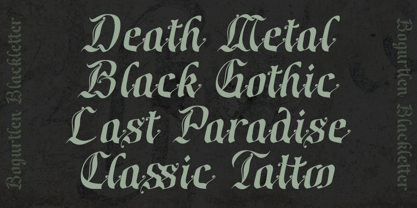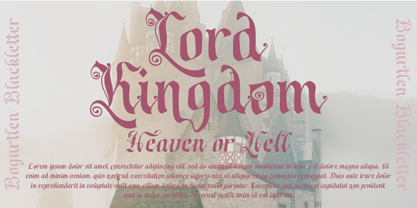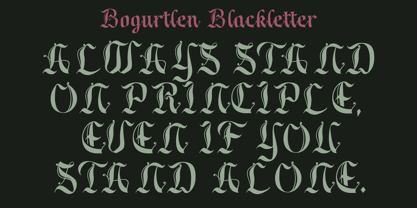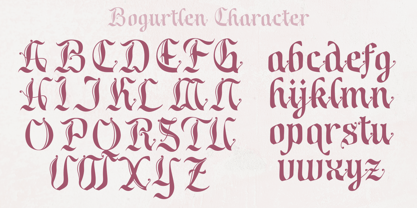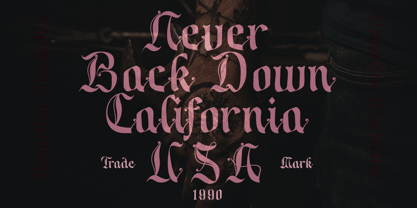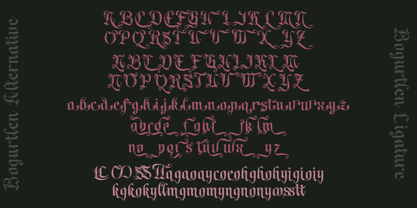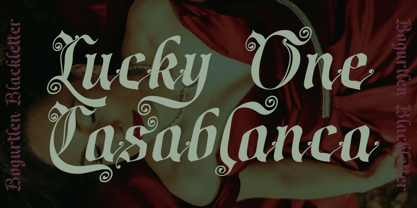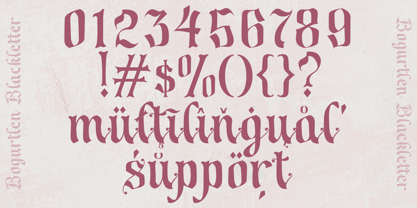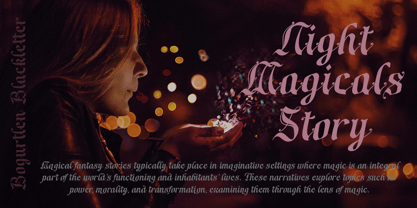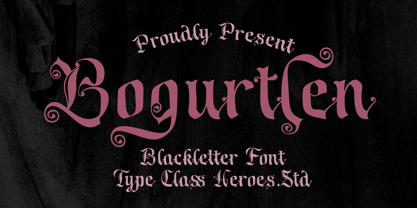
Bogurtlen
by TypeClassHeroes
The Bogurtlen Font Family was designed by Suandana ipandemade and published by TypeClassHeroes. Bogurtlen contains 2 styles and family package options.
Really excited to introduce Bogurtlen is a classic blackletter font, made with a stylish impression and supported by alternative with references to various letters that I combine. Suitable to create any branding, product packaging, invitation, quotes, t-shirt, label, poster, logo etc.